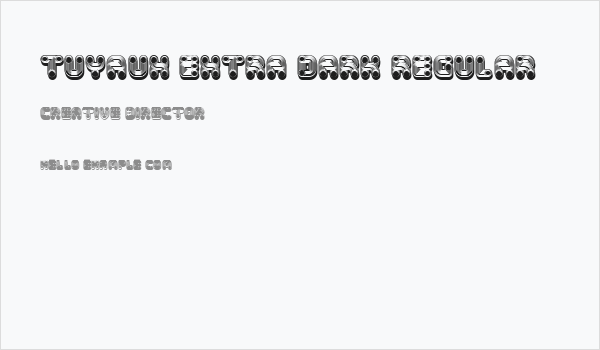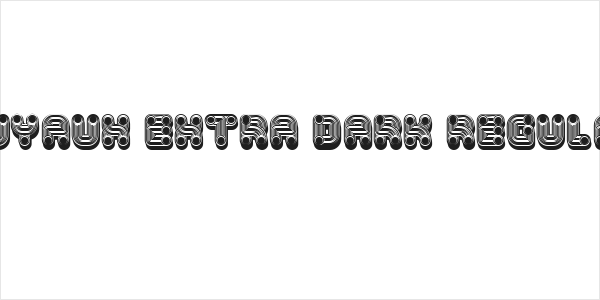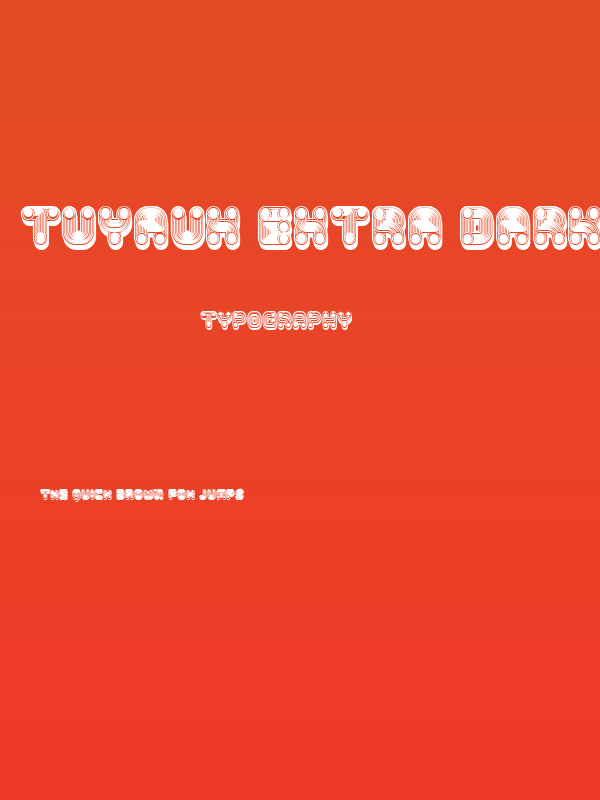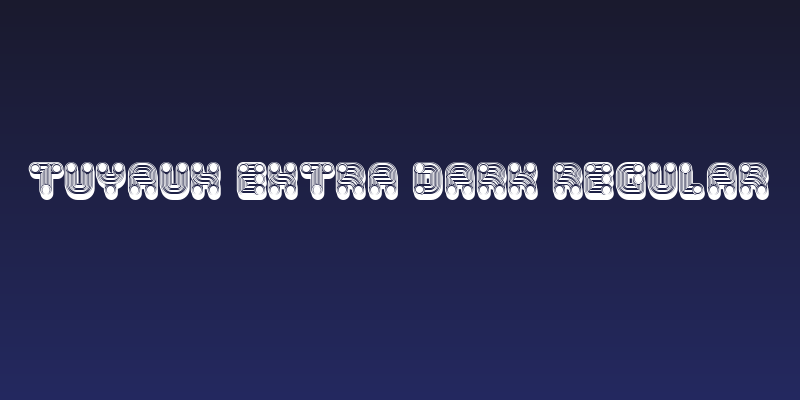
Tuyaux Extra Dark Regular Font
Tuyaux Extra Dark Regular Description
This font features a bold and striking design with a unique layered effect. Each character is composed of multiple concentric lines, creating a sense of depth and dimension. The rounded edges and consistent thickness give it a playful yet structured appearance. The font's geometric nature is enhanced by the circular cutouts within each letter, adding an extra layer of visual interest. Its boldness makes it ideal for attention-grabbing headlines or creative projects that require a modern and dynamic look.
| Proposed Projects | Ideal for branding, poster design, album covers, and any project needing a bold, modern aesthetic. |